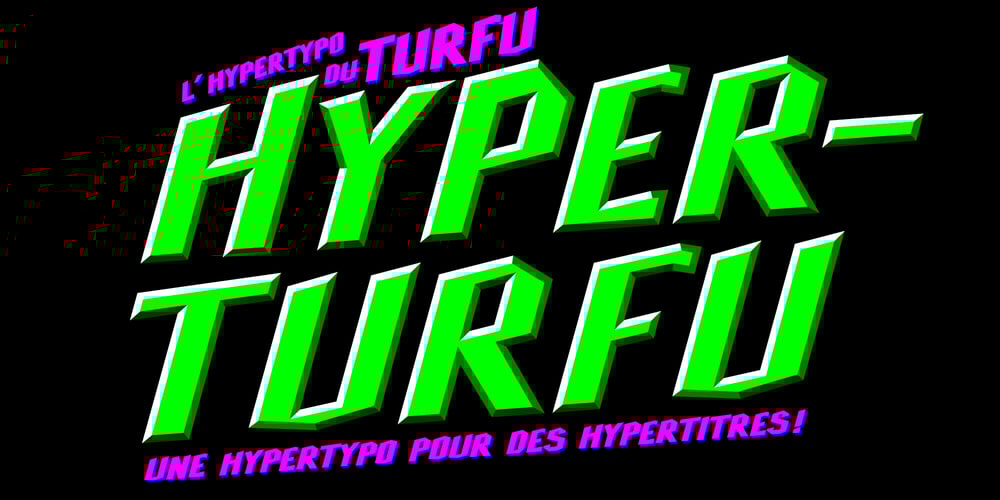
Hyper Turfu
Hyper Turfu font
Hyper Turfu Font Family was designed by Mathias Antonietti and published by Bisou. Hyper Turfu contains 1 styles and family package options. Made in La Chaux-de-Fonds (Switzerland), HyperTurfu was born during the shooting of “The Return of Hyperturfu Xpress 2”. A GoPro on a lego electric train, meters and meters of rails, an empty industrial space, loads of puppets, paper, cardboard, pizza boxes, lights, hot glue and a bunch of friends preparing a one shot scene for a month. The title of the movie was made out of lego pieces, painted with golden spray and hanged over the rails. It was the first inspiration for this awsome superbold font.HyperTurfu is thought from ground up to give a strong impact. It’s gothic retro science fiction 80’s style makes it best suitable for metal music albums or posters. As the “Banco” font it works perfectly with short texts for advertisement, bar, cofee shops concert places or even fancy hairdresser. Just hang it over a pet shop and see what cool animals will come in.